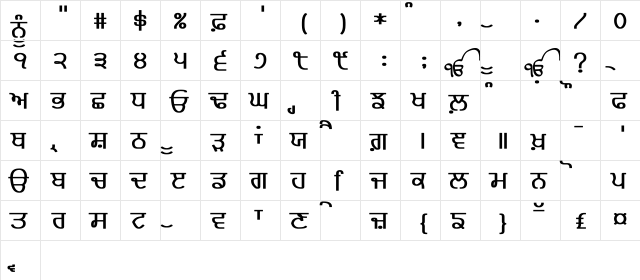
Bulara Demi-Bold Bold
| Foundry | Paul Alan Grosse |
| Designer | Paul Alan Grosse |
Design Context for Bulara Demi-Bold Typeface
Bulara Demi-Bold takes a measured approach to typography — its balanced proportions and neutral character make it a reliable workhorse for both digital and print work. Its bold stroke weight gives it real presence on the page.